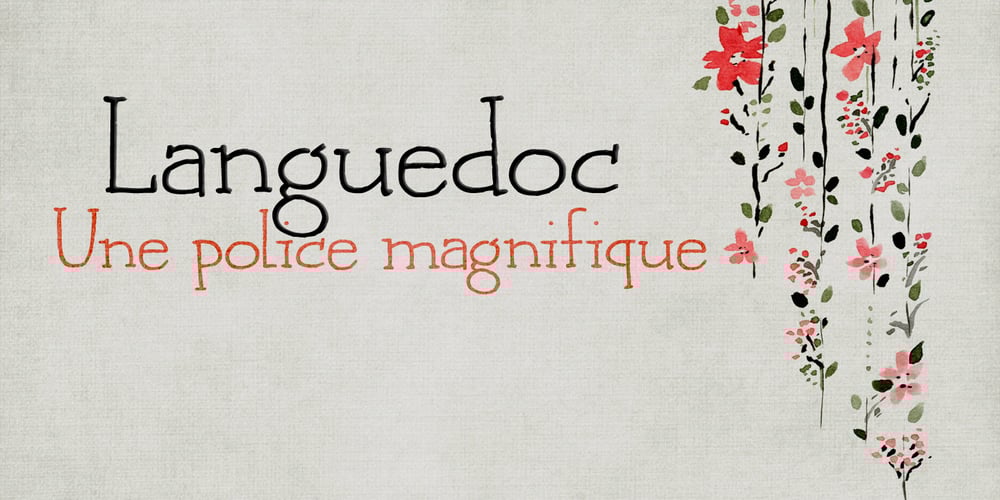
Languedoc Font Family was designed by David Kerkhoff and published by Hanoded. Languedoc contains 2 styles and family package options. Languedoc is a former province of France. Most of its territory lies in what is now the Occitanie region. My family and I love camping there and I figured I’d name a font after it! Languedoc is a beautiful and useful typeface: it is a handmade serif that is a bit rough around the edges, but very legible and fun to use. Because of its legibility, you could use it for texts, product packaging, cook books and whatever else you fancy. Comes with a royal amount of diacritics.